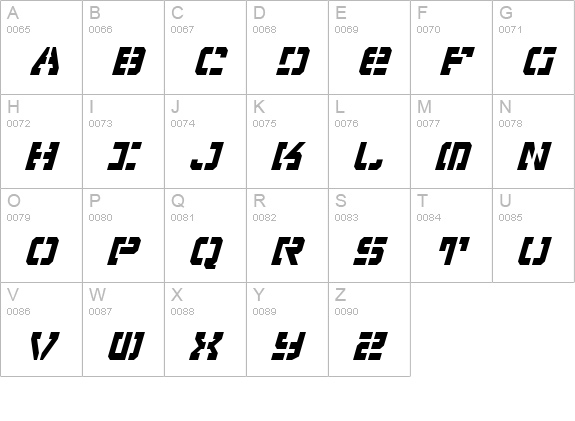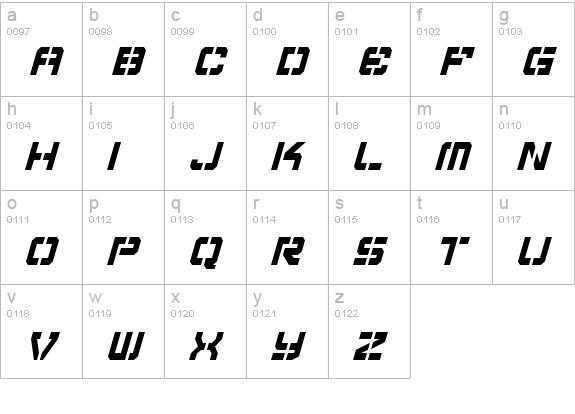
Vyper Condensed Italic is a distinctive, condensed-width, italic variant in the Vyper typeface family \xE2\x80\x94 well suited to design and typography projects.
Vyper Condensed Italic font is a sleek and modern typeface that exudes elegance and sophistication. Its condensed design gives it a unique and distinctive look, perfect for adding a touch of style to any project. The italic style adds a sense of dynamism and flair, making it ideal for fashion, beauty, and luxury brands. What makes Vyper Condensed Italic font even more appealing is that it is available for free download at FontsMarket.com. This means that you can easily access this stunning font and use it in your designs without any cost. Whether you're working on a branding project, editorial design, or any other creative endeavor, Vyper Condensed Italic font is sure to elevate your work and make a lasting impression. Don't miss out on this opportunity to enhance your designs with this beautiful and versatile typeface.